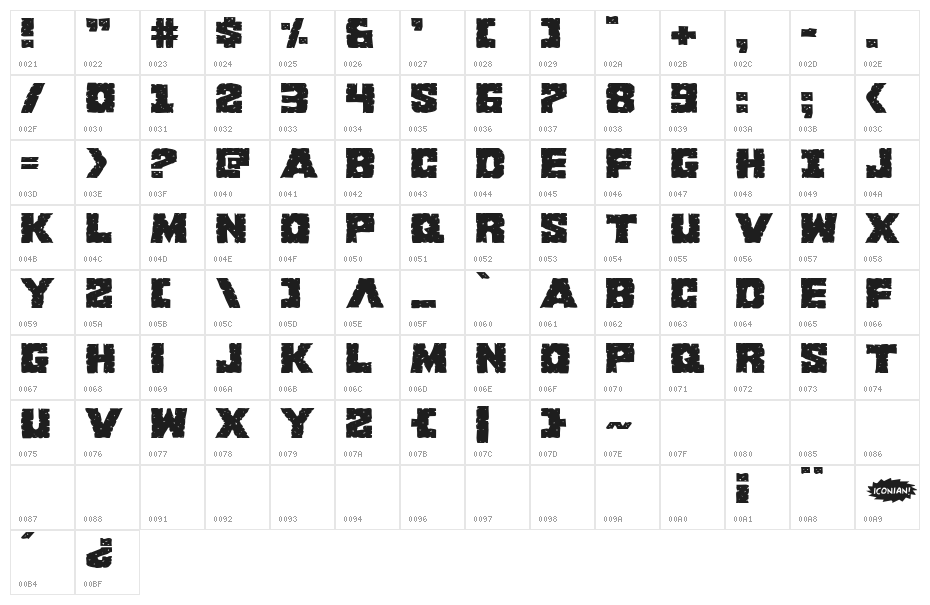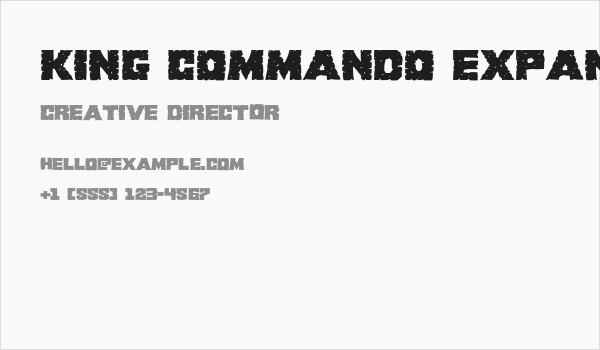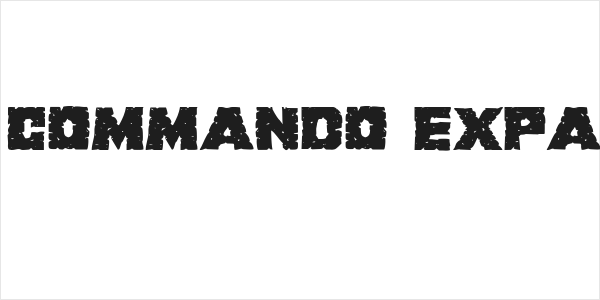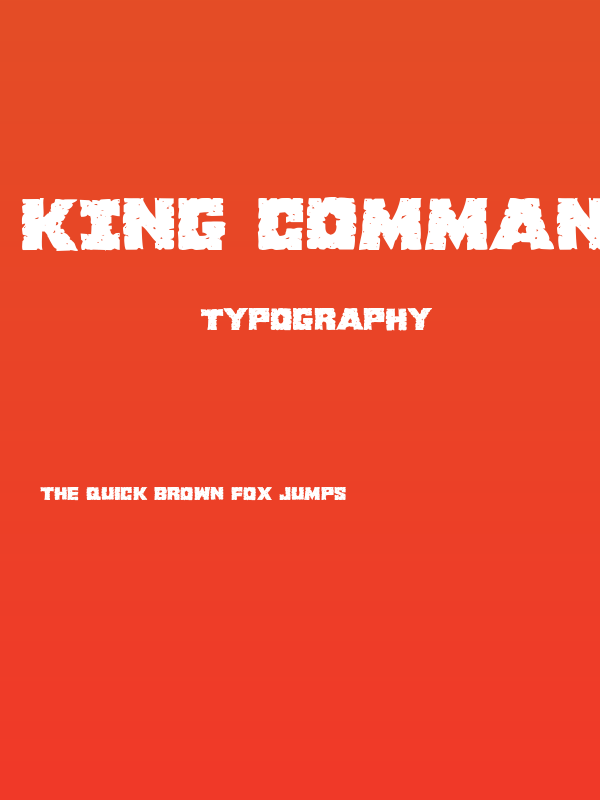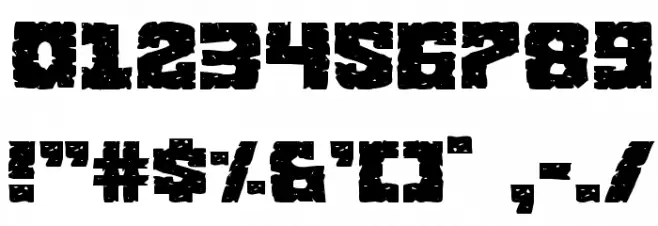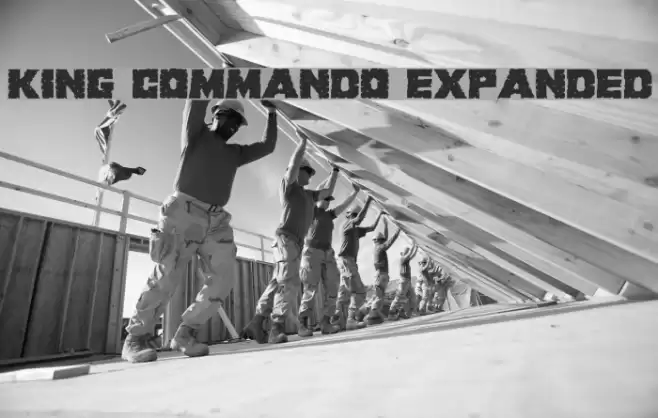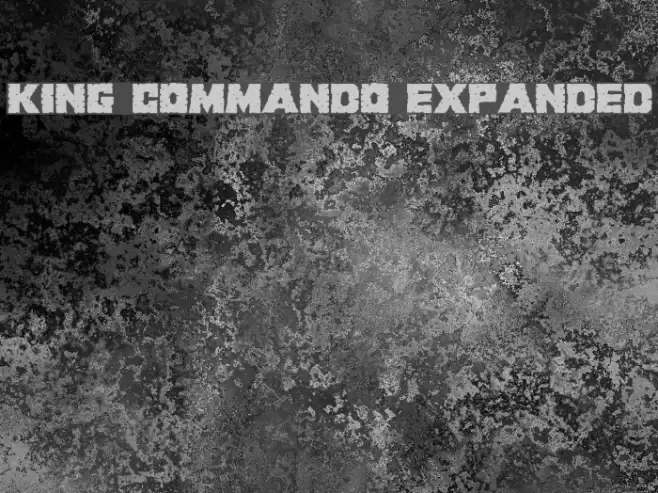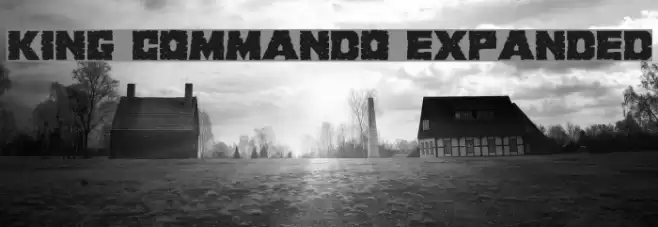
King Commando Expanded Font
King Commando Expanded Description
This font features a bold and rugged design with a distressed, textured appearance. The characters are heavily stylized, giving them a military or industrial feel. The edges are rough and uneven, adding to the font's gritty aesthetic. Each letter is distinct, with a strong presence that commands attention. The font is designed to be impactful and is best suited for display purposes where a bold statement is needed. Its unique style makes it ideal for projects that require a tough, authoritative look.
| Proposed Projects | Ideal for military-themed posters, video game titles, action movie covers, and branding that requires a strong, authoritative presence. |